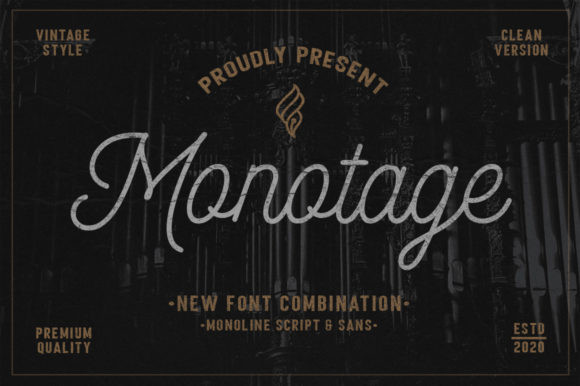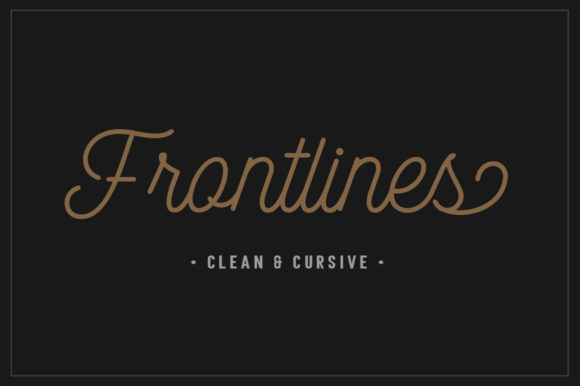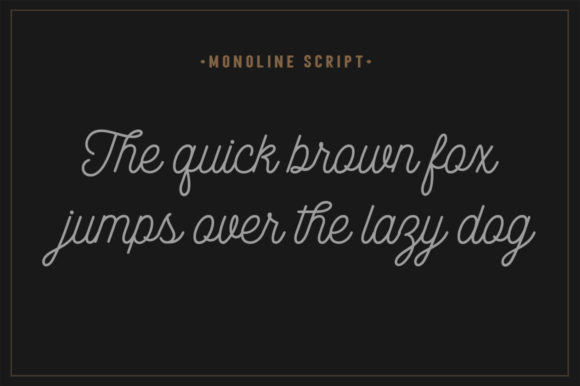
Monotage Font
Monotage is a great duo font. It features a modern monoline script style with a strong sans serif. Combining these two fonts on your next design will give an outstanding look and feel.